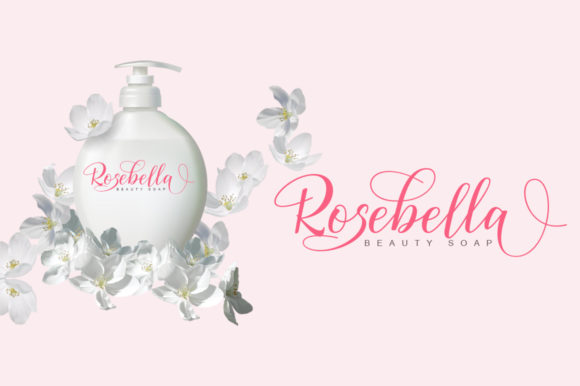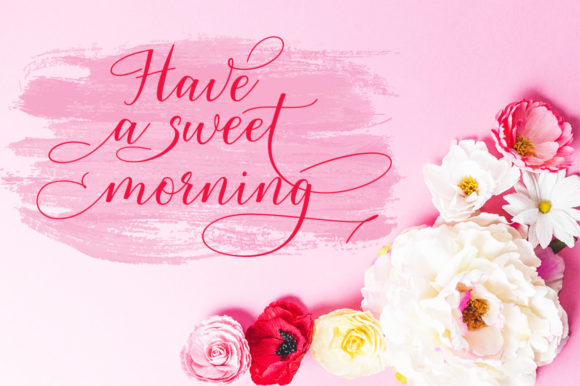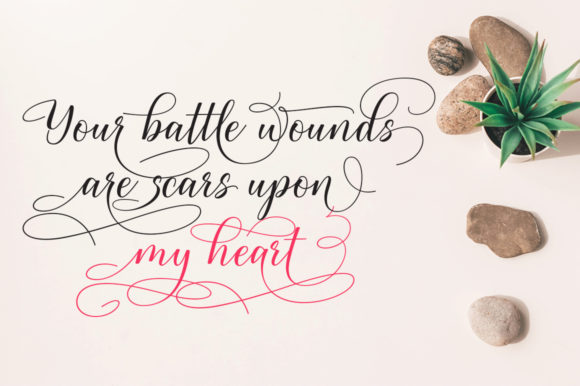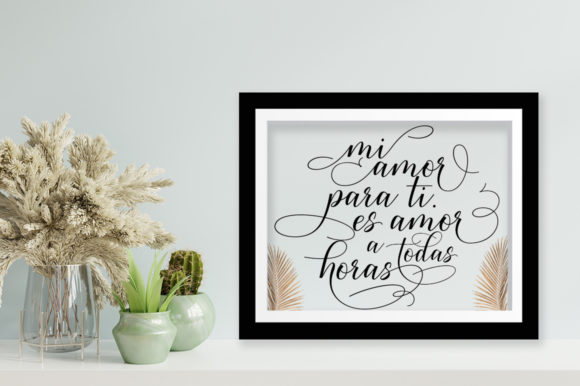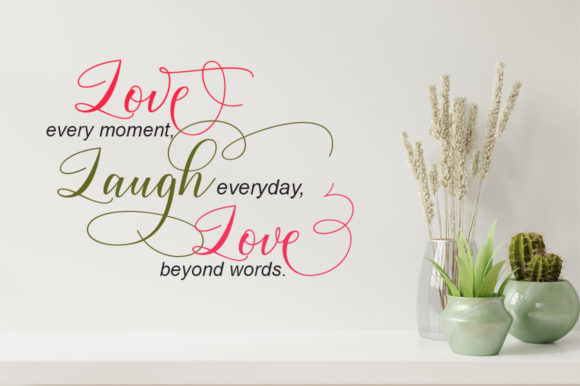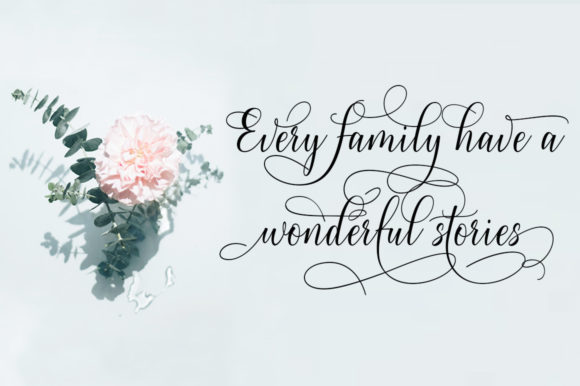
Introduction to Olella Font
Have you ever stared at a blank page, pencil in hand, waiting for the perfect font to bring your creative project to life? That’s exactly what happened to me the first time I laid eyes on the Olella Font. Its whimsical, hand-drawn feel and elegant dance along the baseline captivated me, and I knew I had to learn more.
As a designer, I understand the importance of having high-quality fonts that can elevate any project. The Olella Font is a perfect addition to any design resource, offering a unique and creative touch that sets it apart from more generic fonts. With its transparent background and versatility in use, it’s no wonder why designers are flocking to this beautiful font.
Key Features of Olella Font
- High-quality, professional font suitable for creative projects and designs.
- Unique characteristics include elegant, cursive script and intricate details, perfect for adding a touch of sophistication to designs.
Honest Review: Olella Font
As a designer, I’m always on the lookout for high-quality fonts to elevate my creative projects. The Olella Font is a beautiful, elegant script font that’s perfect for adding a touch of sophistication to any design.
What works well about the Olella Font is its versatility. It’s a great choice for a wide range of projects, from wedding invitations to restaurant menus. The font is also highly customizable, with a transparent background that makes it easy to layer and manipulate.
- ✨ Beautiful, elegant script font
- ✨ Versatile and suitable for various design projects
- ✨ Highly customizable
However, there are a few limitations to consider. The font may not be suitable for bold, loud designs, as it can get lost in busy layouts. Additionally, the font is not as widely compatible as some other fonts, so you may need to do some extra troubleshooting to get it to work on all platforms.
Overall, I’m really impressed with the Olella Font. It’s a great design resource that’s perfect for designers who want to add a touch of elegance to their projects. With its high quality and versatility, it’s definitely worth checking out – especially since it’s available for free download!
Tips for Getting the Most Out of Olella Font
To get the most out of Olella Font, use it for creative projects where a high-quality, transparent background is desired. Experiment with different font sizes, colors, and styles to achieve the desired effect.
Olella Font is commonly used for:
- Designing logos and branding materials
- Creating presentations and documents
- Developing digital products and websites
- Designing social media graphics and ads